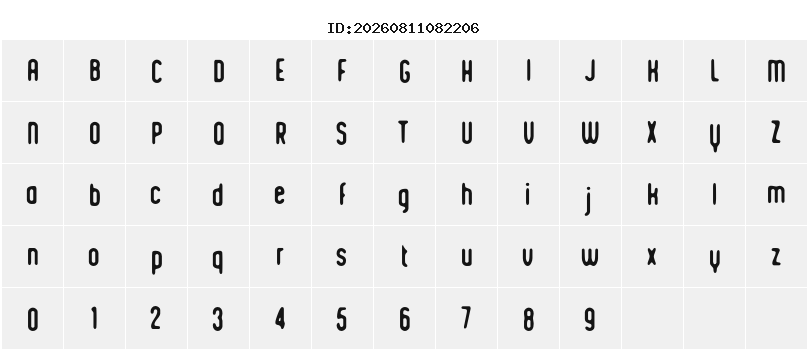
Romantico Preview
• Font Name: Romantico
• Font ID: Kustomtype: Romantico: 2015
• Full Font Name: Romantico
• Version: Version 1.00 March 9, 2015, initial release
• PostScript Name: Romantico
• Character Count: 117
• Designer: Kustomtype
• Manufacturer: Kustomtype
• Description: Romantico (c) 2015 by Kustomtype. All rights reserved.
About Romantico.otf
Romantico.otf is a modern, elegant sans-serif font designed for ultimate readability and visual harmony. Perfect for branding, headlines, web design, and print materials.